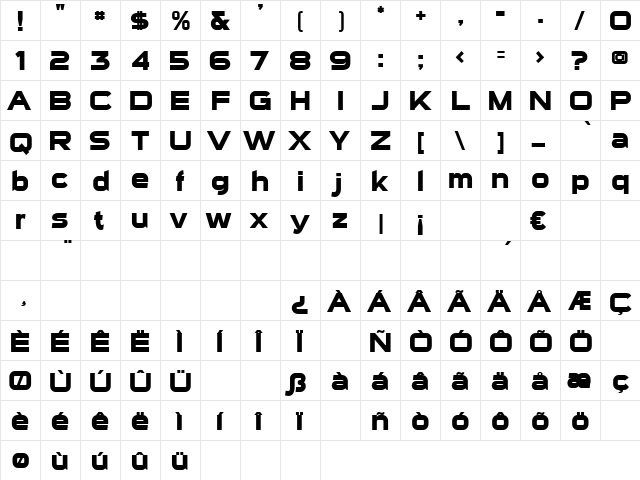
Sui Generis Bold
Design Context for Sui Generis Typeface
Sui Generis takes a measured approach to typography — its balanced proportions and neutral character make it a reliable workhorse for both digital and print work. The heavy weight commands attention and anchors typographic hierarchies.